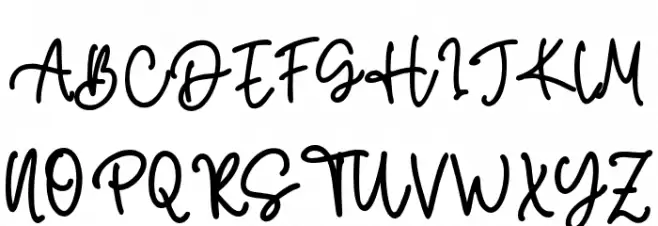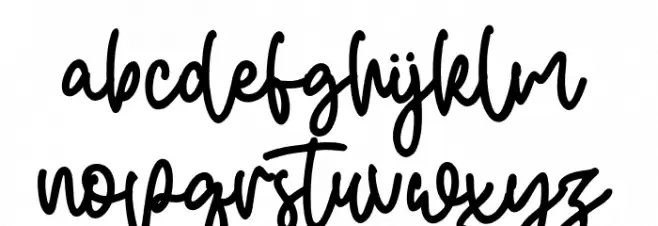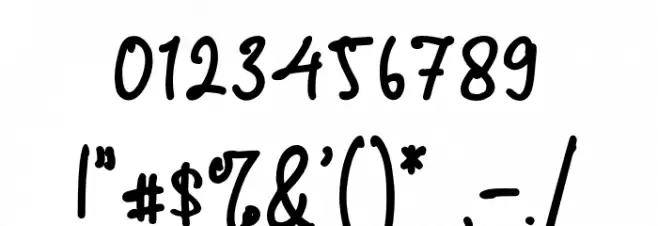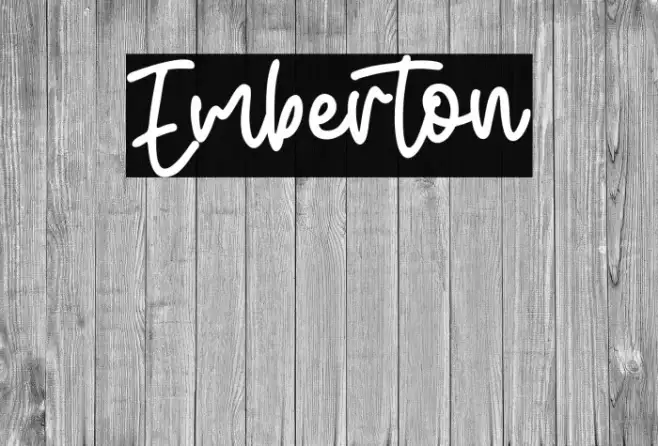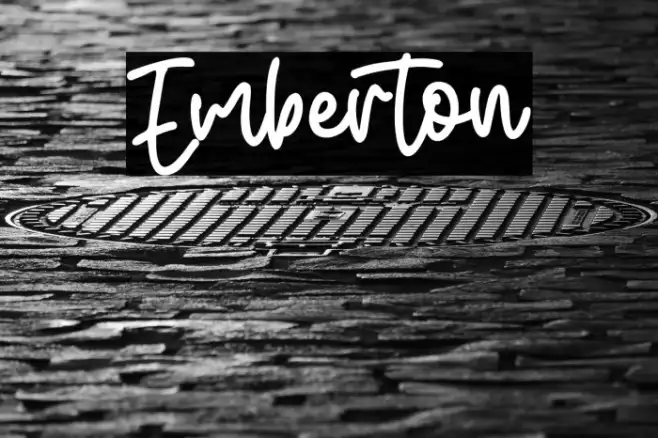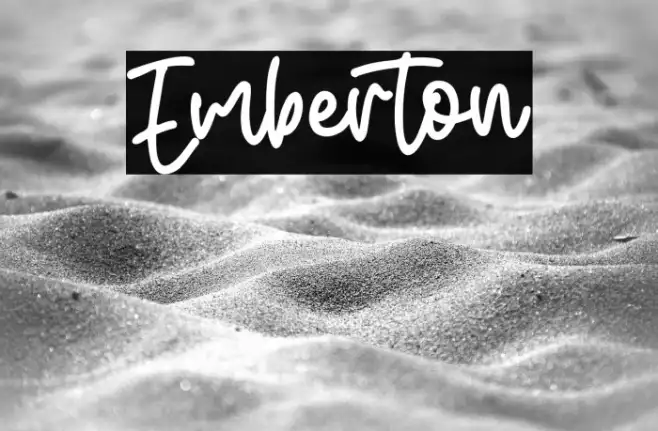
Emberton
This font features a lively and flowing script style, characterized by its smooth, cursive strokes that mimic natural handwriting. The uppercase letters are bold and prominent, while the lowercase letters maintain a consistent fluidity, creating a harmonious balance. The numerals and special characters are crafted with the same attention to detail, ensuring uniformity across the entire character set. The overall appearance is both elegant and approachable, making it suitable for a variety of creative applications.
A lively and flowing script font with smooth, cursive strokes.
- Proposed Projects: Ideal for wedding invitations, greeting cards, personal branding, and creative projects that require a personal touch.
- Category: Script
- Overall Style: Decorative
- Use Case: Logos, Invitations, Personal Branding